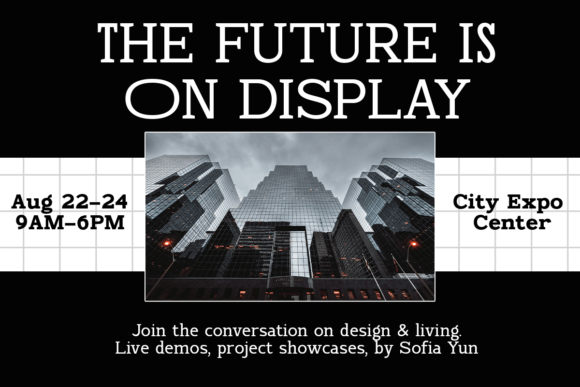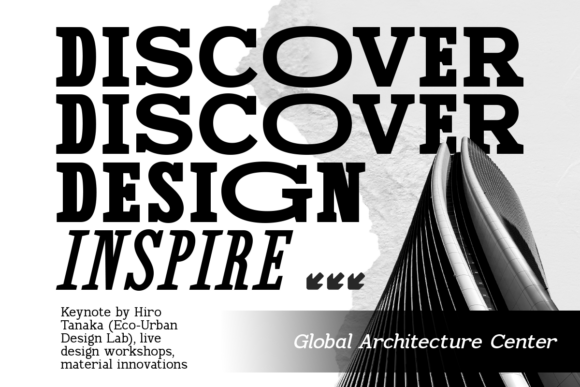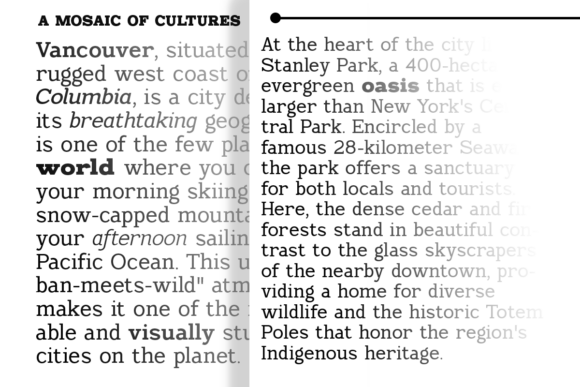
Introduction to Mello Serif Font
Introducing Mello Serif, a stylish and elegant serif font family crafted to bring a modern yet timeless feel to your designs.
Its clean structure and beautiful contrast make it perfect for creating high-end visuals, whether for branding, fashion, editorial layouts, or social media content With multiple weights and italic styles included, Mello Serif gives you full creative control to build stunning typography effortlessly.
Key Features of Mello Serif Font
Why Choose Mello Serif Font?
Mello Serif Font offers exceptional quality and versatility, making it a valuable addition to your design toolkit. Whether you’re creating for personal projects or commercial use, Mello Serif Font delivers professional results.